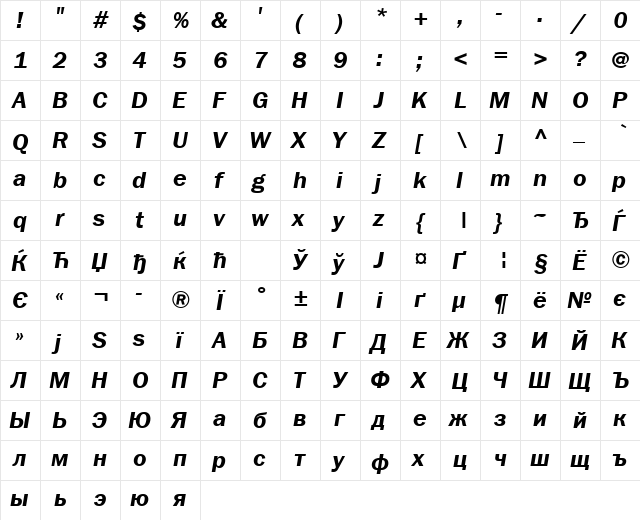
FranklinGothDemiCTT Italic
Design Context for FranklinGothDemiCTT Typeface
FranklinGothDemiCTT takes a measured approach to typography — its balanced proportions and neutral character make it a reliable workhorse for both digital and print work. The dynamic lean of this cut emphasises speed and emphasis in any layout.
Pro Tip: Use FranklinGothDemiCTT for emphasis, pull quotes, and subheadings where its slanted energy can add rhythm to the layout.